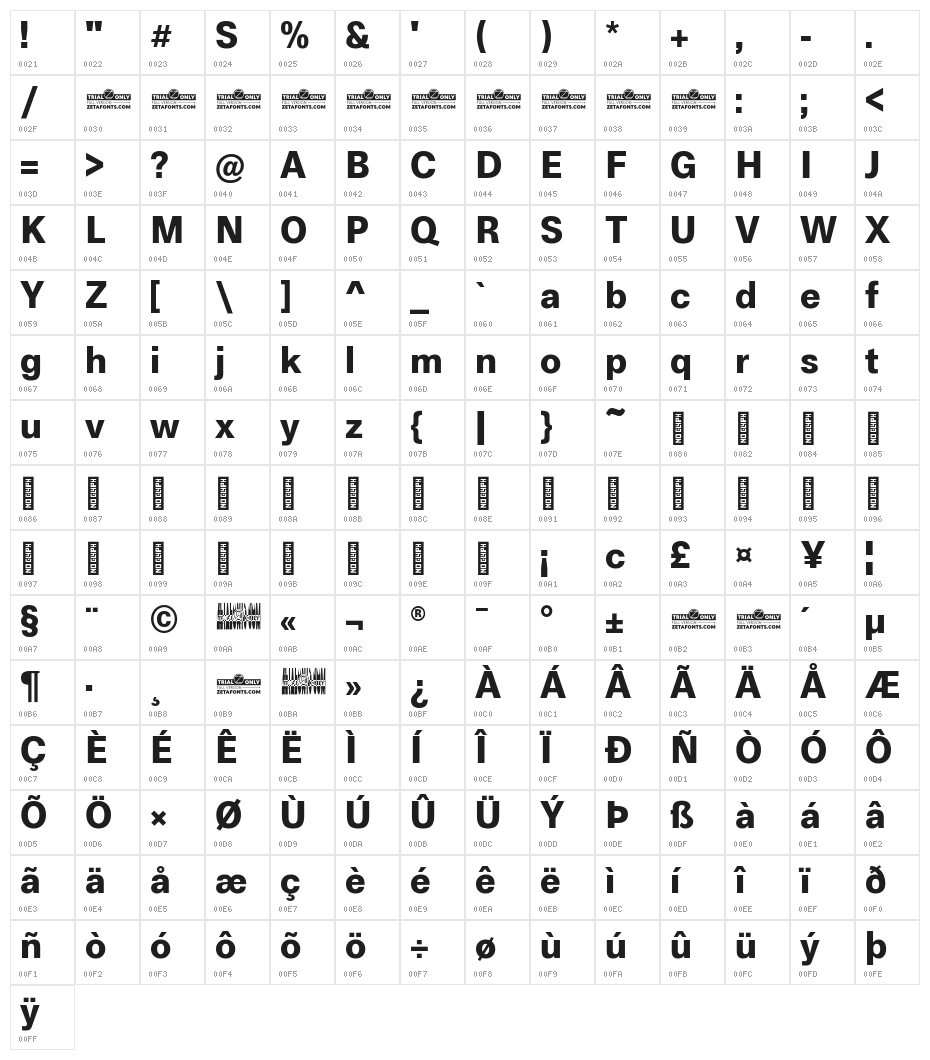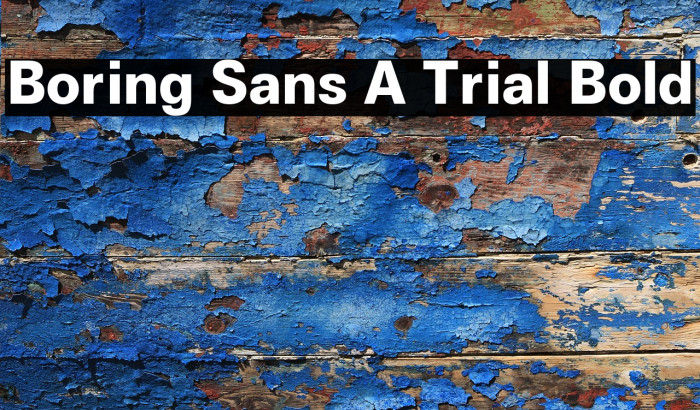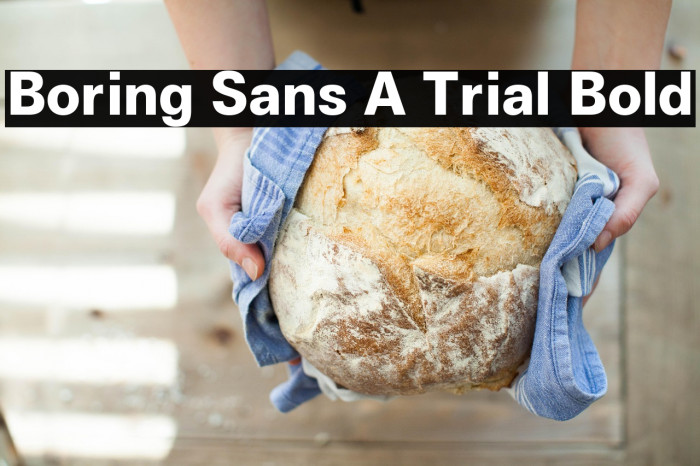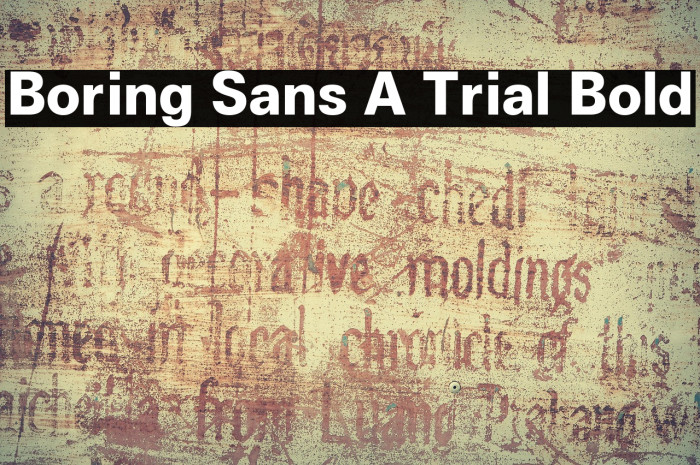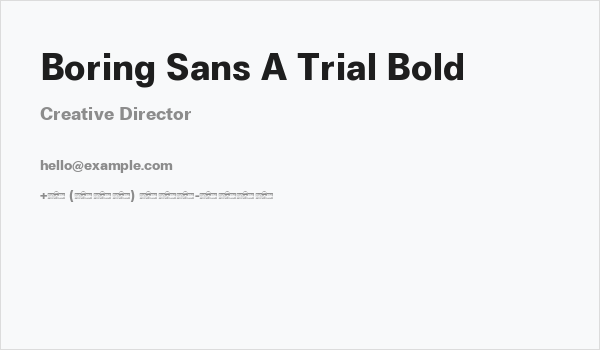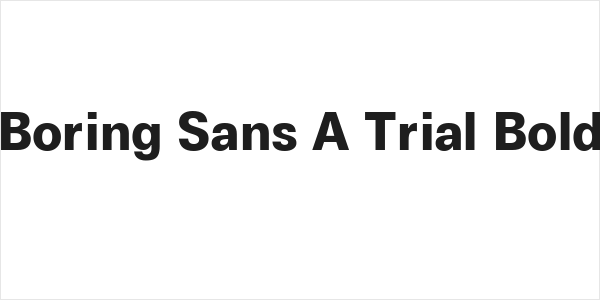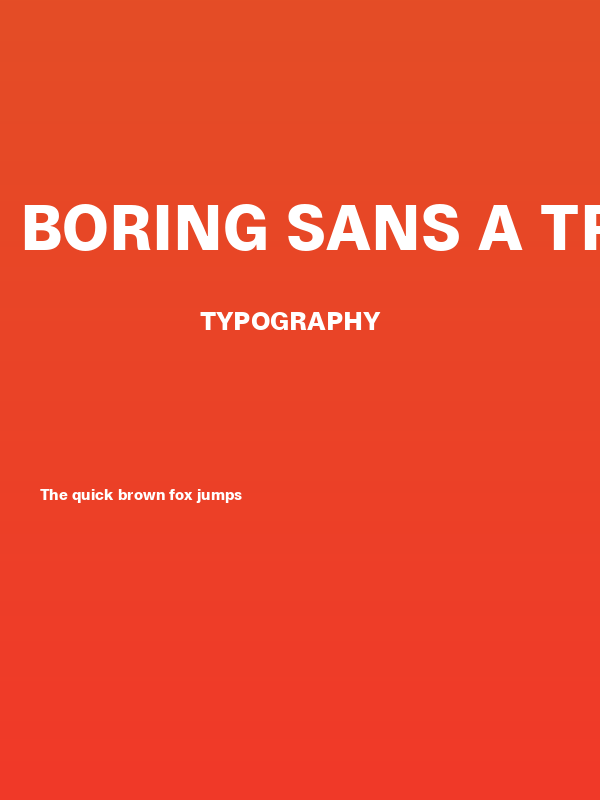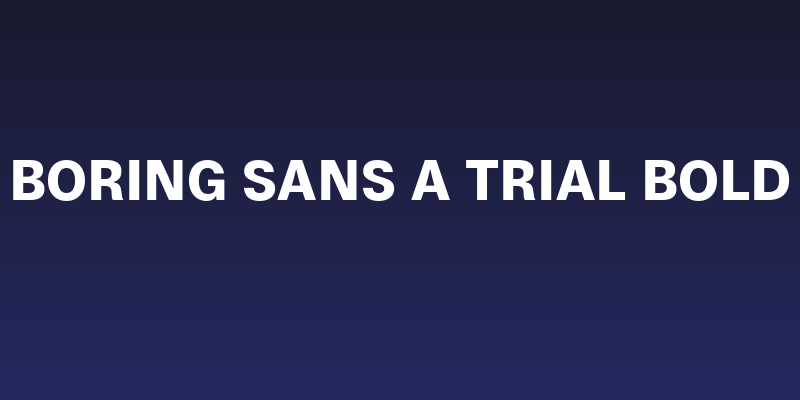
Boring Sans A Trial Bold Font
Boring Sans A Trial Bold Description
This font features a bold and clean sans-serif style, characterized by its strong geometric shapes and uniform stroke widths. The uppercase and lowercase letters maintain a consistent height and width, providing a balanced and harmonious appearance. The numerals and special characters are designed with the same boldness, ensuring readability and impact. Its simplicity and clarity make it versatile for various design applications.
| Use Case | Headlines, Logos, Digital interfaces |
| Proposed Projects | Ideal for branding, advertising, headlines, and digital interfaces where clarity and impact are essential. |